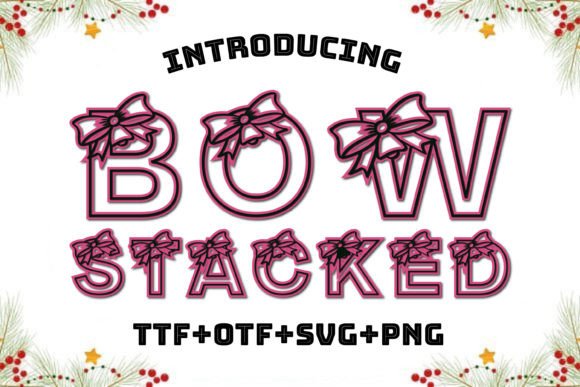
Welcome to Bow Stacked: The Playful Font that Brings Joy to Your Designs
Have you ever been in the middle of a design project, and suddenly, it feels like something is missing? You’re not quite sure what it is, but you know your design needs a spark to bring it to life. I recall a recent experience working on a wedding invitation project, where I was struggling to find the perfect font to capture the playful and whimsical tone my client wanted. That’s when I stumbled upon Bow Stacked, a colorful font that instantly breathed life into my design.
A Personal Review of Bow Stacked
As a designer, I’m always on the lookout for unique typefaces that can add a touch of personality to my projects. Bow Stacked has quickly become one of my go-to fonts, and here’s why:
- ✨ Playful and Whimsical: Bow Stacked has a unique, hand-drawn feel that’s perfect for designs that require a touch of playfulness and joy.
- ✅ Highly Versatile: This font is suitable for a wide range of design projects, from branding campaigns and packaging designs to wedding invitations and personal creative endeavors.
- 💫 Vibrant Personality: Bow Stacked has a transformative power that can instantly elevate your designs to new heights.
While Bow Stacked is an amazing font, there are a few quirks to be aware of:
- 🤔 Limited Use in Formal Designs: Due to its playful nature, Bow Stacked might not be the best fit for formal designs or projects that require a more professional tone.
- ⚠️ Glyph Overload: With so many fun glyphs and stylistic alternates, it’s easy to get carried away and overuse them. Be mindful of balancing your design to avoid visual overload.
The Backstory of Bow Stacked
While the true story of Bow Stacked’s creation is unknown, it’s easy to imagine that the designer was inspired by the joy of childhood and the magic of colorful, playful typography. Perhaps the designer was a young artist who loved to draw and experiment with different letterforms, eventually creating a font that would bring happiness to designers and their clients.
| What makes Bow Stacked unique? | Bow Stacked’s unique blend of playful and whimsical design elements, combined with its highly versatile nature, makes it a standout font. |
In conclusion, Bow Stacked is a vibrant and playful font that’s perfect for designers, crafters, and creative hobbyists looking to add a touch of joy and whimsy to their projects. With its highly versatile nature and wide range of design possibilities, Bow Stacked is sure to become a favorite in your design arsenal.